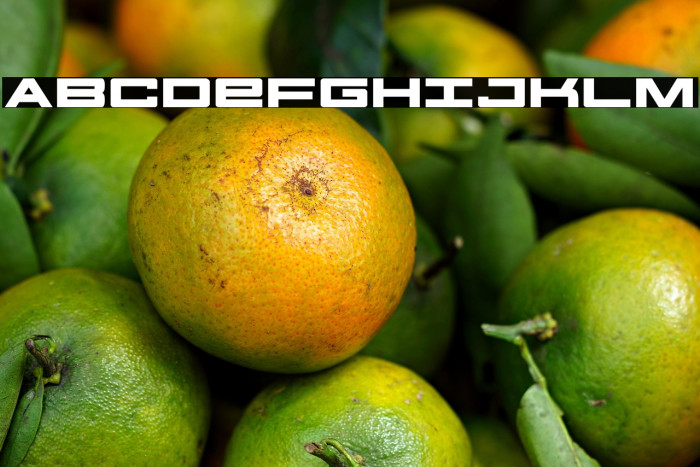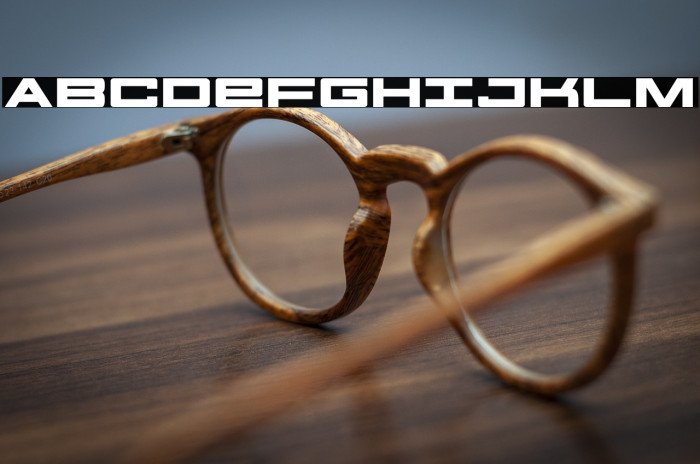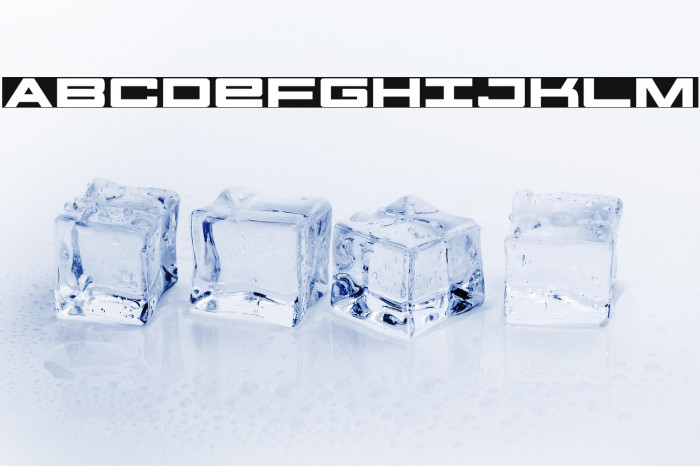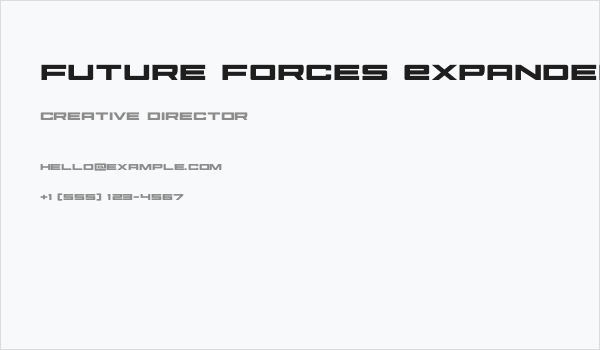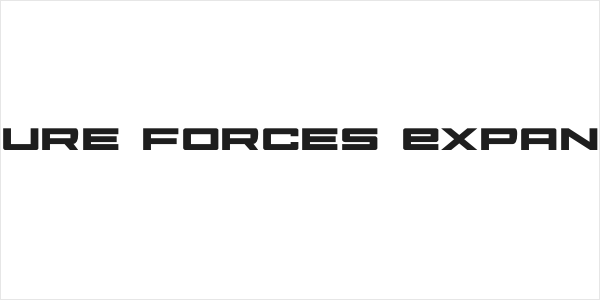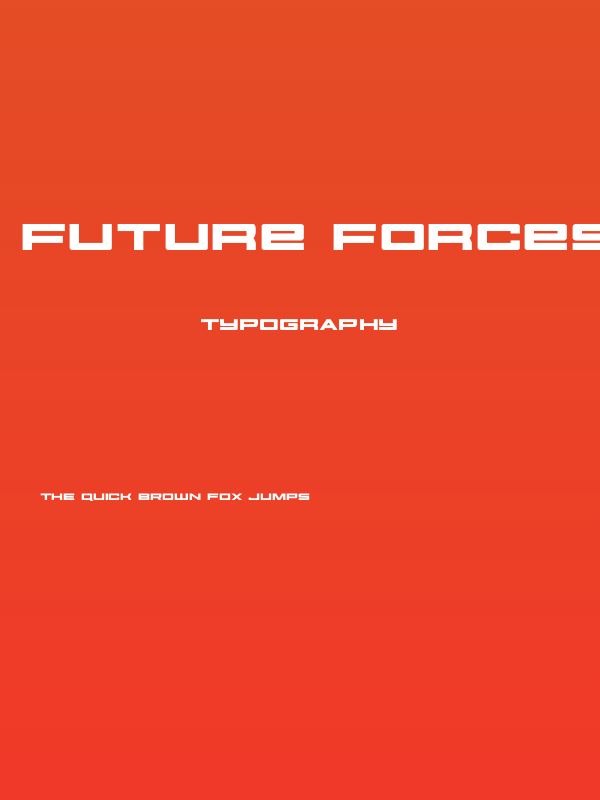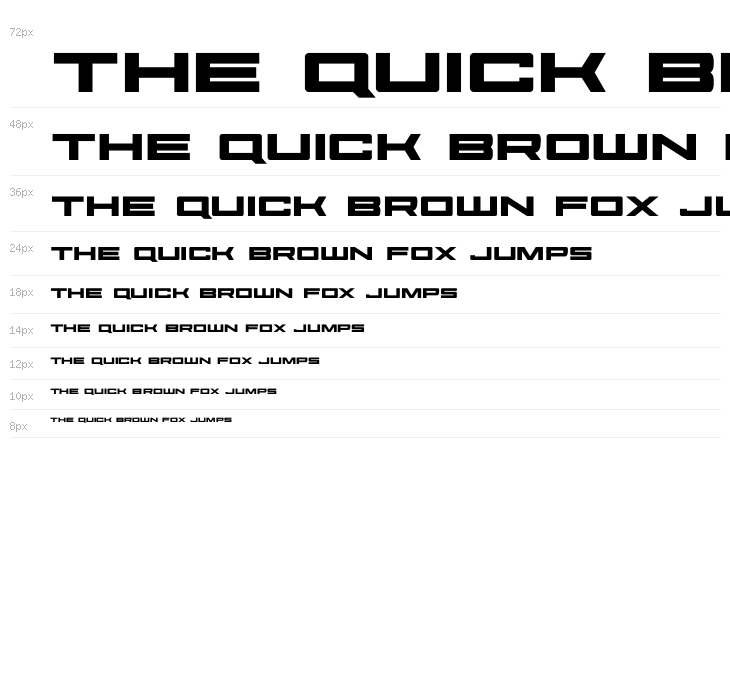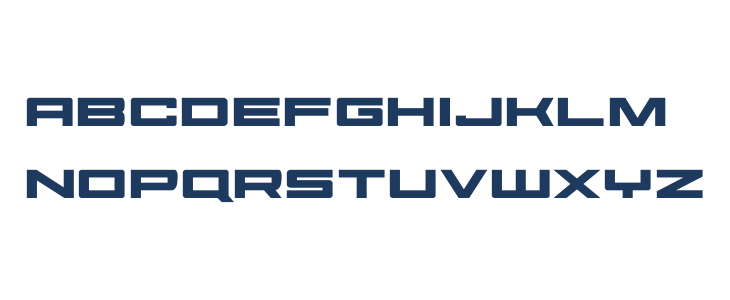
Future Forces Expanded Font
Future Forces Expanded Description
This font exhibits a futuristic and bold design, characterized by its geometric and angular letterforms. The uppercase and lowercase letters maintain a consistent style, with sharp edges and a uniform width that gives the font a strong, cohesive appearance. The numerals and special characters follow the same design principles, ensuring a harmonious look across all elements. The font's structure is clean and modern, making it suitable for projects that require a contemporary and tech-savvy aesthetic. Its expanded width and bold weight contribute to its commanding presence, making it ideal for attention-grabbing headlines or branding materials.
| Proposed Projects | Ideal for technology branding, sci-fi movie posters, video game titles, and modern advertising campaigns. |